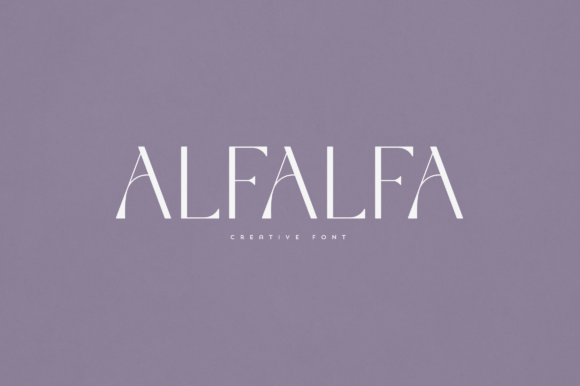
Welcome to the realm of Alfalfa Font, an exquisite serif masterpiece crafted by the talented hands of vladfedotovv. Prepare to be captivated by its unmatched grace and versatility, for Alfalfa is more than just a font; it's a gateway to unlocking your creativity's boundless potential.
Alfalfa is the perfect companion for your branding endeavors. Its elegant curves and refined strokes will elevate your designs to new heights, making your logo, branding, and headlines truly unforgettable. Imagine your brand adorned with the sophistication of Alfalfa, a timeless classic that exudes both professionalism and creativity.
But Alfalfa's charm extends far beyond branding. Its versatility empowers you to transform any project into a visual masterpiece. Whether you're designing homeware, crafting product packaging, or creating eye-catching magazine headers, Alfalfa will effortlessly adapt to your vision, adding a touch of understated elegance to every creation.
Unleash your imagination and explore the endless possibilities with Alfalfa. Its versatility knows no bounds, making it the perfect font for overlaying stylish text onto any background image. Envision your designs coming to life, imbued with the sophistication of Alfalfa, a font that will make your words dance with flair and grace.